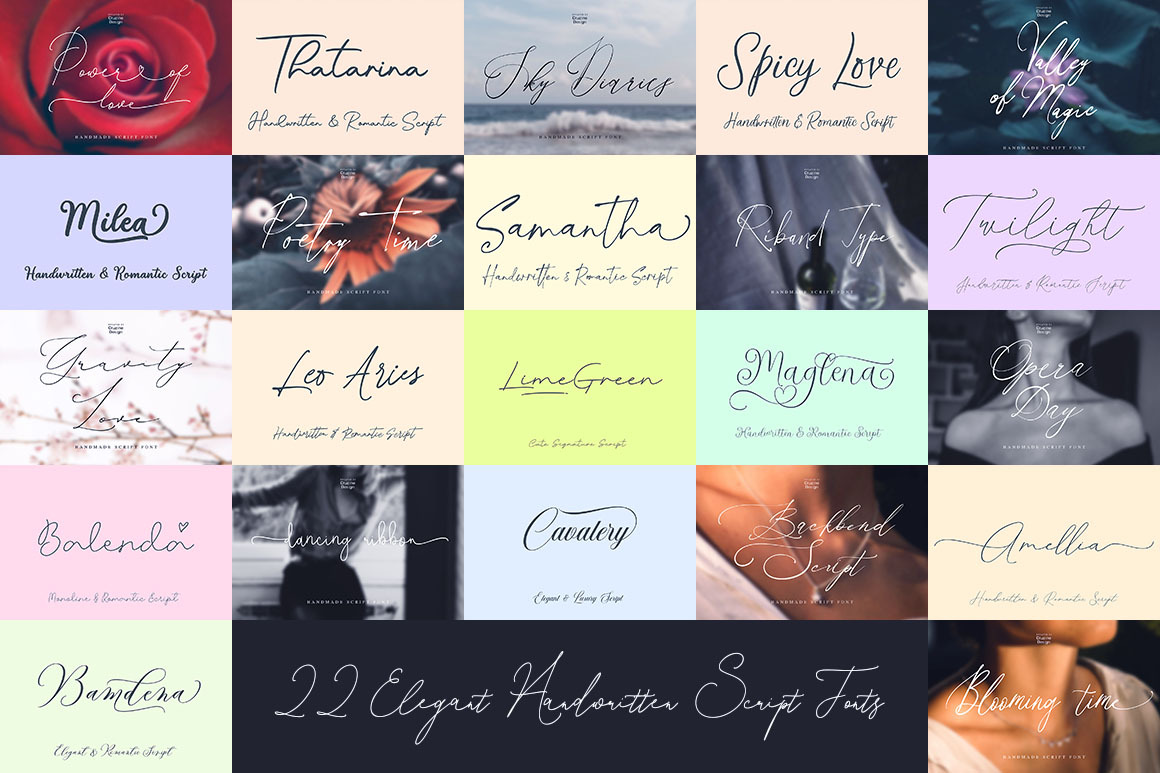
22 Elegant Handwritten Script Fonts
Creative style handwritten script fonts for your new projects. Great for elegant/luxury/wedding/vintage projects like: branding, corporate identity, print designs, headers, logo designs, t-shirt designs...